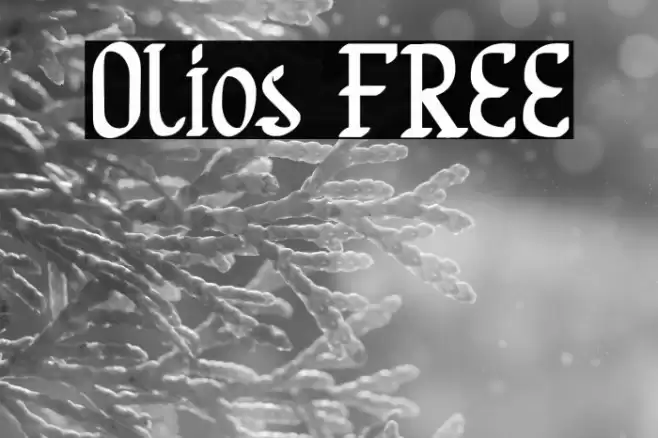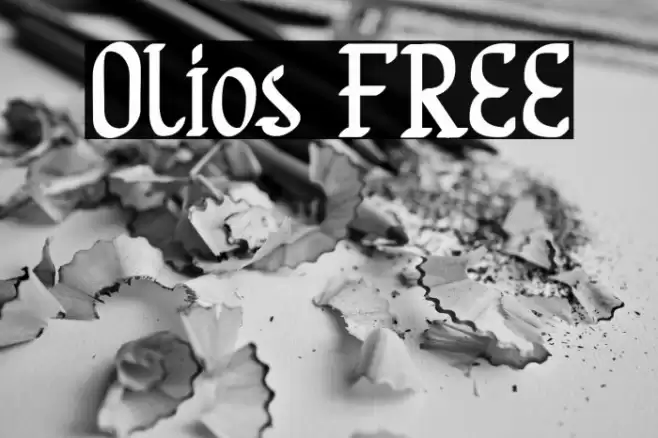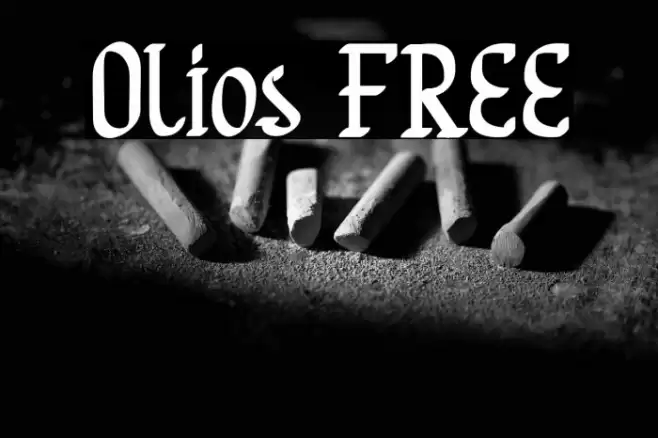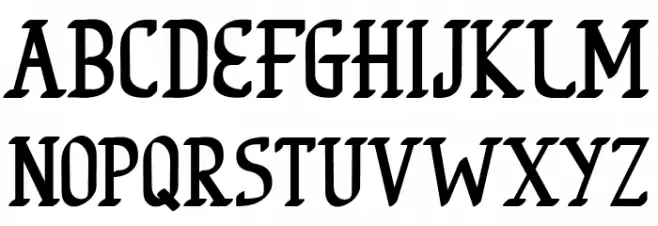
Olios FREE Font
Olios FREE Description
This font features a unique blend of modern and vintage styles, characterized by its bold and slightly condensed letterforms. The uppercase letters exhibit a strong presence with sharp serifs and a slight curvature that adds a touch of elegance. The lowercase letters maintain a consistent style, with rounded edges and a playful yet sophisticated appearance. The numbers and special characters are designed to complement the alphabet, maintaining the same bold and slightly condensed style. Overall, this font is versatile, suitable for a variety of design projects that require a distinctive and eye-catching typeface.
A bold, slightly condensed font with a blend of modern and vintage styles from Regular fonts.
- Font: Olios FREE
- Proposed Projects: Ideal for branding, headlines, posters, and any project that requires a distinctive and bold typeface.
- Overall Style: Modern Vintage